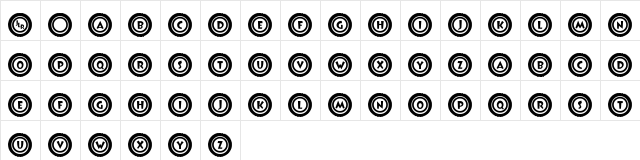
JLR Li'l Bit Tires Regular
Design Context for JLR Li'l Bit Tires Typeface
JLR Li'l Bit Tires is a composed and adaptable typeface that performs quietly and consistently across a wide range of design contexts.